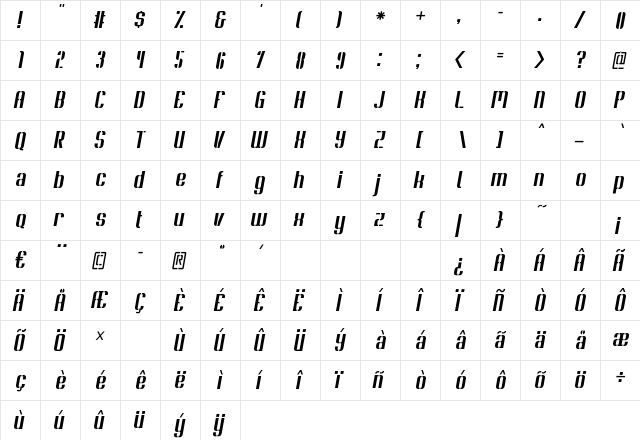
Soupertrouper StencilOblique
Design Context for Soupertrouper Typeface
Soupertrouper borrows the utilitarian aesthetic of stencil lettering, with its characteristic cutaways and no-frills construction lending an industrial edge. The slanted form adds forward momentum and visual energy.
A strong choice for packaging that needs edge, warehouse aesthetics, and rough-and-ready visual identities.
Pro Tip: Use Soupertrouper at large sizes on packaging, posters, or apparel where the stencil cutaways read clearly. Avoid small sizes where those gaps become visual noise.